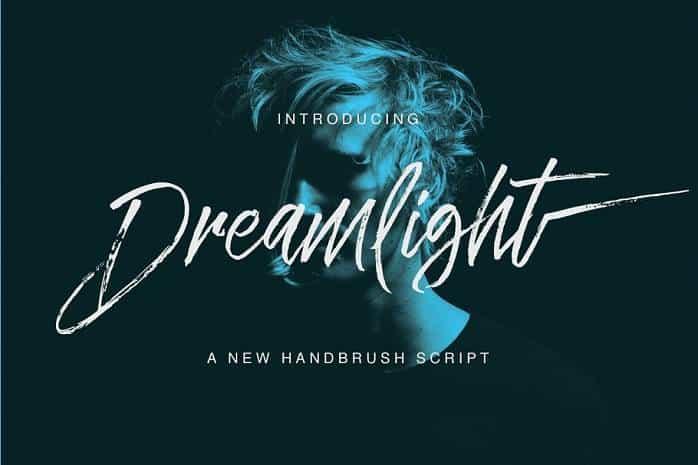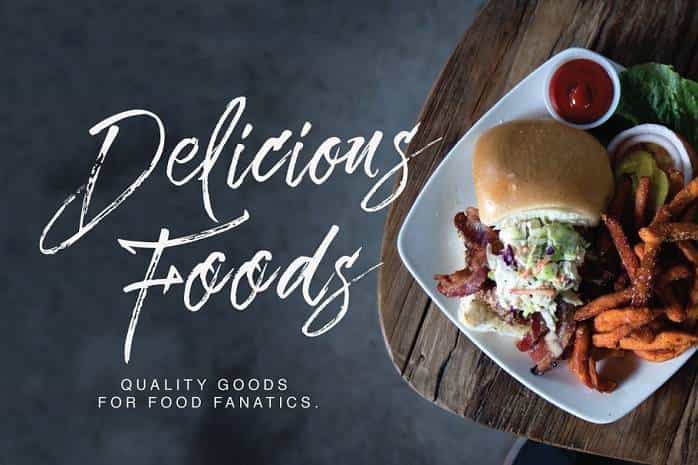
Introducing Dreamlight Font. A brush script typeface by QueenType. Dreamlight Script Font is a wonderful hand Lettering script that gives the natural looks. Alternate character contain with Ligature and more. All those alternate characters can be accessed in OpenType savvy programs like Adobe Illustrator and Adobe InDesign.